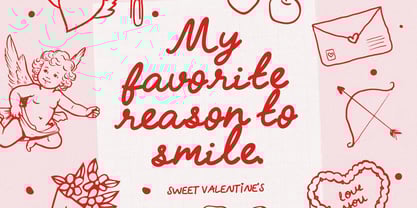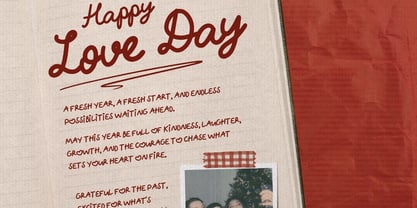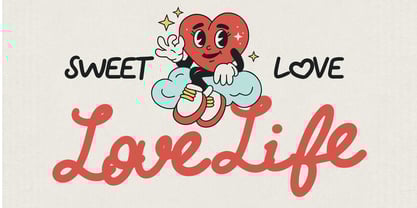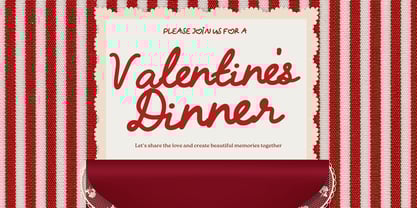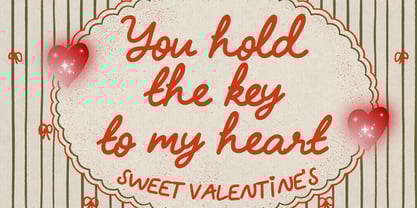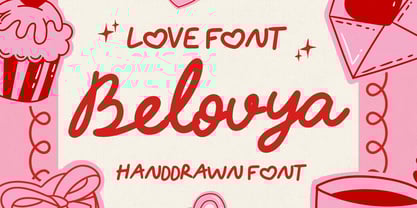
Belovya
by Maghrib Type
The Belovya Font Family was designed by Rizky Setyaludin and published by Maghrib Type. Belovya contains 2 styles and family package options. More about this family
Celebrate the season of love with Belovya, a charming font duo designed to bring a warm, personal touch to your romantic projects. Inspired by the sweetness of Valentine’s Day and the intimacy of handwritten notes, Belovya perfectly balances a flowing script with a playful, hand-drawn sans serif. The Design Concept Belovya is crafted to capture the essence of "Hand-Drawn with Love." The Script version features fluid, bouncy strokes that mimic natural handwriting, while the Sans version provides a clean yet whimsical companion that keeps your layouts grounded and legible. A unique feature of this duo is the subtle heart-shaped details integrated into certain characters (like the dots on 'i' or the counters of letters), making it an instant favorite for Valentine-themed designs. What’s Included: Belovya Script: A graceful, flowing script that exudes elegance and warmth. Belovya Sans: A casual, hand-drawn uppercase/lowercase sans that complements the script perfectly. Perfect For: Whether you are designing heartfelt Valentine’s Day cards, romantic wedding invitations, "Save the Date" announcements, social media quotes, or cute branding for bakeries and gift shops, Belovya provides the versatility you need. It’s also ideal for scrapbooking, journaling, and any project that requires a "human" feel. Spread love through your typography with the Belovya Font Duo—where every character tells a love story.
Designers: Rizky Setyaludin
Foundry: Maghrib Type
Maghrib Type is an independent type foundry specializing in handcrafted-style fonts that capture authenticity and expressiveness. Founded with a vision to bring the warmth and uniqueness of handwriting into the digital world, we blend human touch with technical precision to create fonts that are both functional and full of character. With a strong commitment to quality and originality, each of our typefaces is designed to deliver a natural and emotional feel, making them the perfect choice for designers seeking a personal touch in their projects. We believe that every stroke tells a story, and through our fonts, we strive to help people express their ideas in a more vivid and meaningful way.